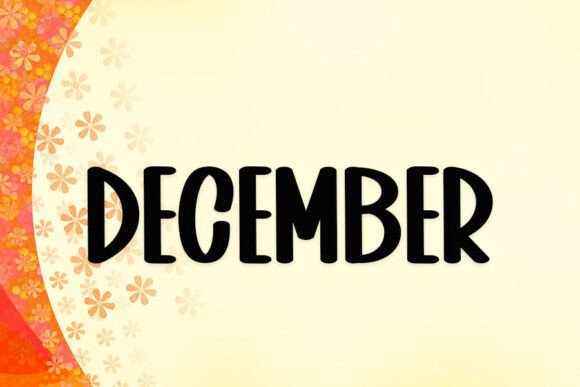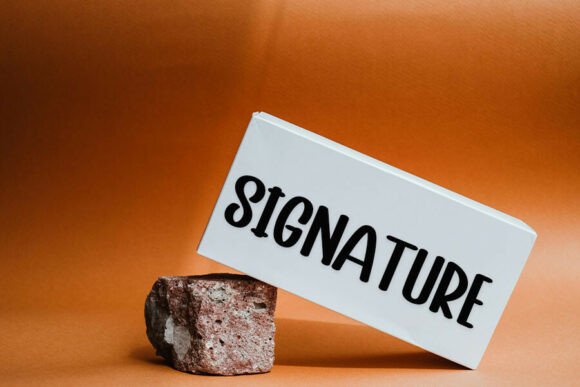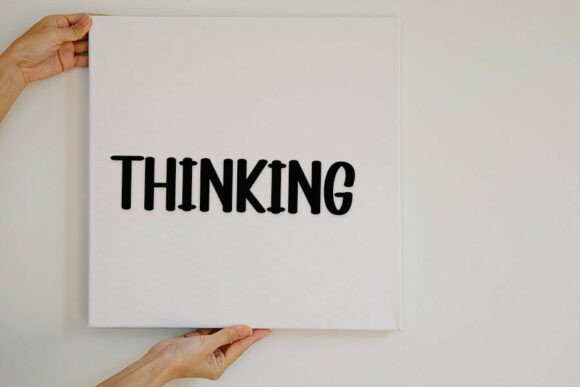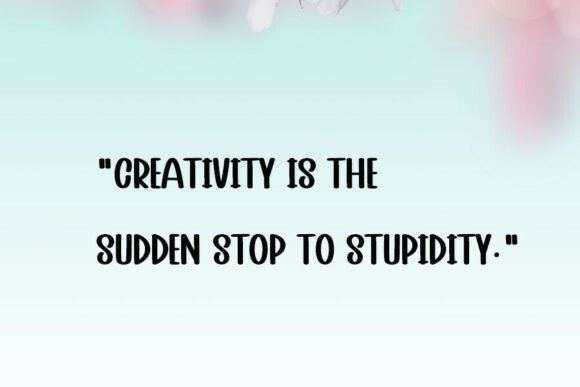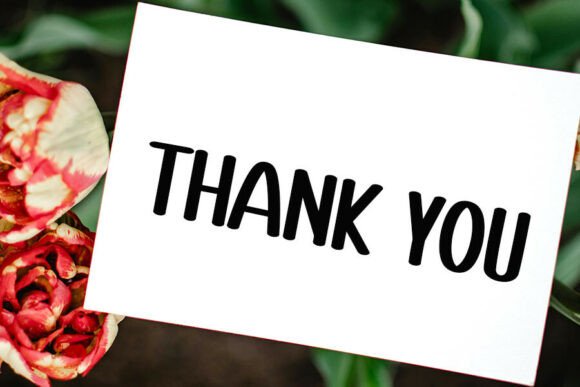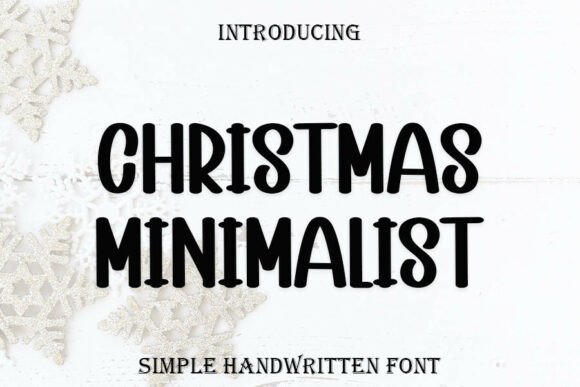
Introducing Christmas Minimalist Font: A Delicate Handwritten Font for a Cool and Unique Design
As the holiday season approaches, designers and crafters are on the lookout for the perfect font to add a touch of magic to their Christmas creations. If you’re looking for a font that’s both elegant and understated, look no further than Christmas Minimalist Font. This delicate handwritten font is carefully crafted to bring a cool and unique design to your holiday projects.
What is Christmas Minimalist Font?
Christmas Minimalist Font is a beautifully designed handwritten font that’s perfect for adding a personal touch to your holiday creations. With its delicate and elegant strokes, this font is ideal for writing letters, invitations, food products, titles, and more. Whether you’re a designer, crafter, or DIY enthusiast, Christmas Minimalist Font is a versatile and stylish addition to your font collection.
Key Features of Christmas Minimalist Font
- Delicate Handwritten Design: Christmas Minimalist Font features a beautiful, hand-crafted design that’s both elegant and understated.
- Cool and Unique Style: This font’s minimalist approach to design makes it perfect for adding a touch of sophistication to your holiday projects.
- Versatile Use: Use Christmas Minimalist Font to write letters, invitations, food products, titles, and more.
- Easily Readable: The font’s clear and delicate design ensures that your text is easily readable, even at small sizes.
Uses for Christmas Minimalist Font
Christmas Minimalist Font is a versatile font that can be used in a variety of ways. Here are some ideas to get you started:
- Holiday Invitations: Add a touch of elegance to your holiday invitations with Christmas Minimalist Font.
- Christmas Cards: Create beautiful and unique Christmas cards with this delicate handwritten font.
- Food Product Labels: Use Christmas Minimalist Font to add a personal touch to your holiday food product labels.
- Titles and Headings: Add a touch of sophistication to your holiday titles and headings with this stylish font.
- Social Media Graphics: Use Christmas Minimalist Font to create eye-catching social media graphics for the holiday season.
Tips for Using Christmas Minimalist Font
Here are some tips for getting the most out of Christmas Minimalist Font:
- Pair with Bold Fonts: Pair Christmas Minimalist Font with bold fonts for a striking contrast.
- Use at Large Sizes: Use Christmas Minimalist Font at large sizes to showcase its delicate and elegant design.
- Experiment with Colors: Experiment with different colors to find the perfect match for your holiday project.
Christmas Minimalist Font is a beautiful and versatile font that’s perfect for adding a touch of elegance to your holiday creations. With its delicate handwritten design and cool and unique style, this font is ideal for designers, crafters, and DIY enthusiasts. Whether you’re creating holiday invitations, Christmas cards, or social media graphics, Christmas Minimalist Font is a stylish and sophisticated addition to your font collection.